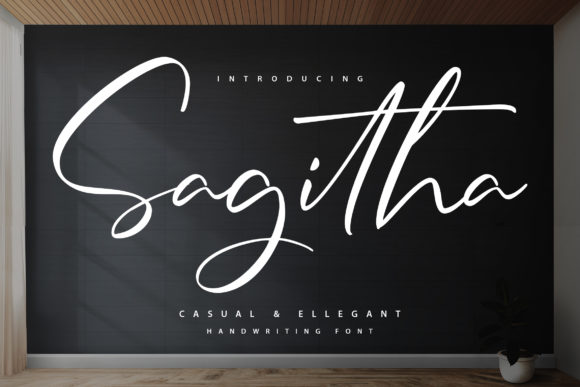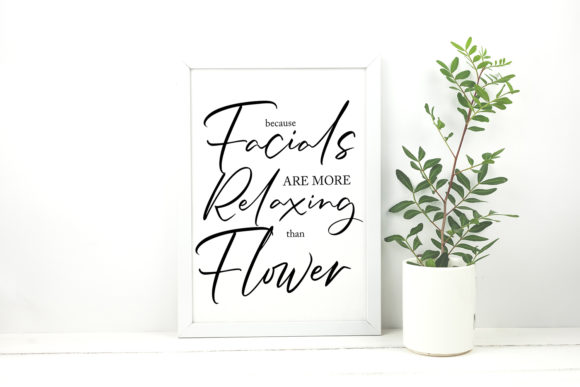
About Sagitha Font
Sagitha is a dazzling and flexible script font that brings a touch of grace and elegance to your creative projects. With its intricate and well-crafted letterforms, this font is sure to make a memorable impact on your designs.
The beauty of Sagitha lies in its versatility. It can be adapted to a wide range of design ideas, making it suitable for various purposes. Whether you’re working on branding, packaging, invitations, logos, or any other creative project, Sagitha can elevate your designs with its graceful touch.
The flowing and interconnected letters of Sagitha create a harmonious and smooth appearance. Each stroke is carefully crafted, resulting in a beautiful and balanced aesthetic. The font exudes a sense of elegance and sophistication, making it perfect for projects that require a touch of refinement.
One of the notable features of Sagitha is its flexibility. It can adapt to different design styles and themes, whether you’re going for a classic, modern, or even whimsical look. The font’s versatility allows it to be used in a variety of contexts, from formal and professional designs to more playful and creative projects.
Sagitha is PUA encoded, which means that you can easily access all the glyphs and swashes it offers. This provides you with a wide range of design possibilities and allows you to customize and personalize your creations with ease. You can experiment with different ligatures, alternates, and swashes to add flair and uniqueness to your designs.
Whether you’re designing invitations, greeting cards, posters, signage, or any other project that requires a touch of elegance, Sagitha can be your go-to font. Its dazzling and flexible nature ensures that your designs will stand out and leave a lasting impression.
In conclusion, Sagitha is a dazzling and flexible script font that adds a touch of grace and elegance to your creative ideas. With its well-crafted letterforms and graceful appearance, it brings sophistication to a wide range of design projects. Its versatility and PUA encoding make it easy to customize and personalize your designs, allowing you to create unique and memorable pieces of art.